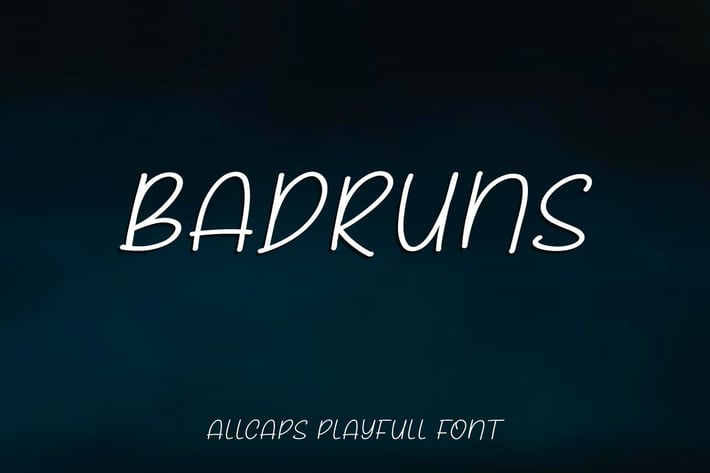
Badruns - Allcaps Playful Font
Hello! Badruns is a simple handwritten font.
Badruns can be used in any works such as flyer, book title, advertisement, social media content, logo and many more.